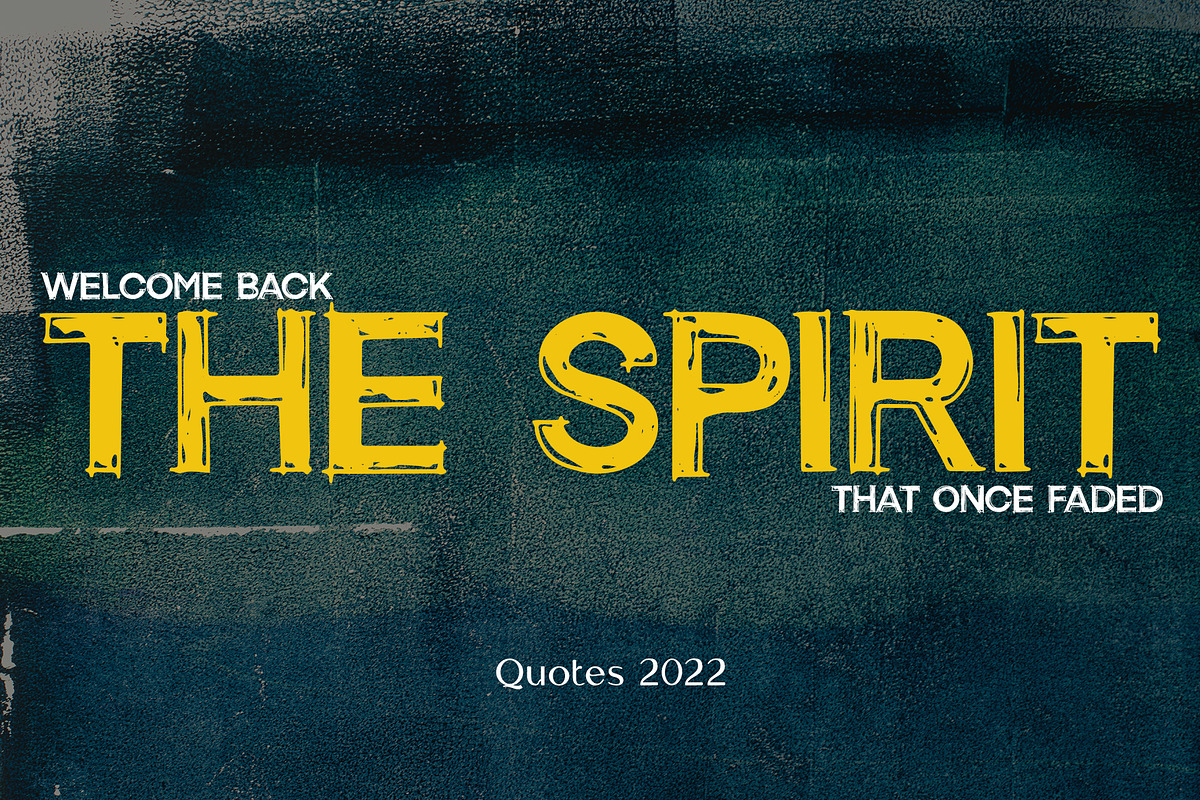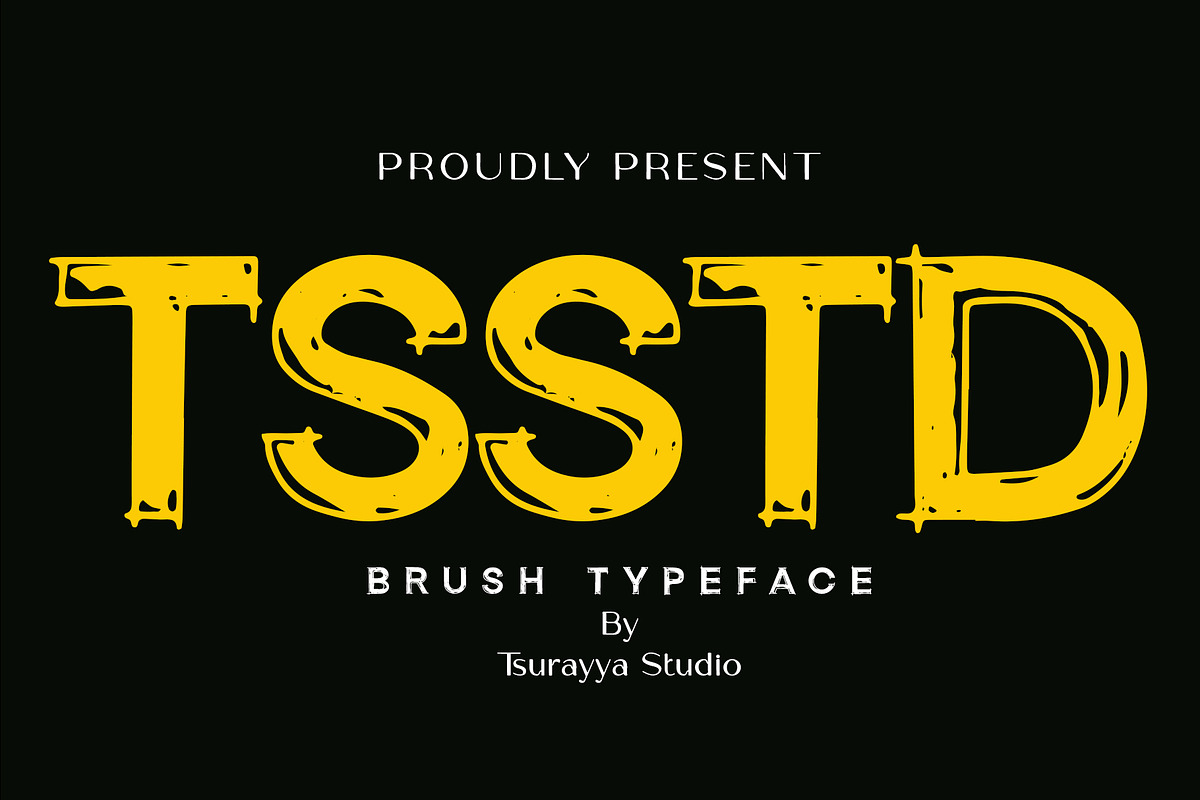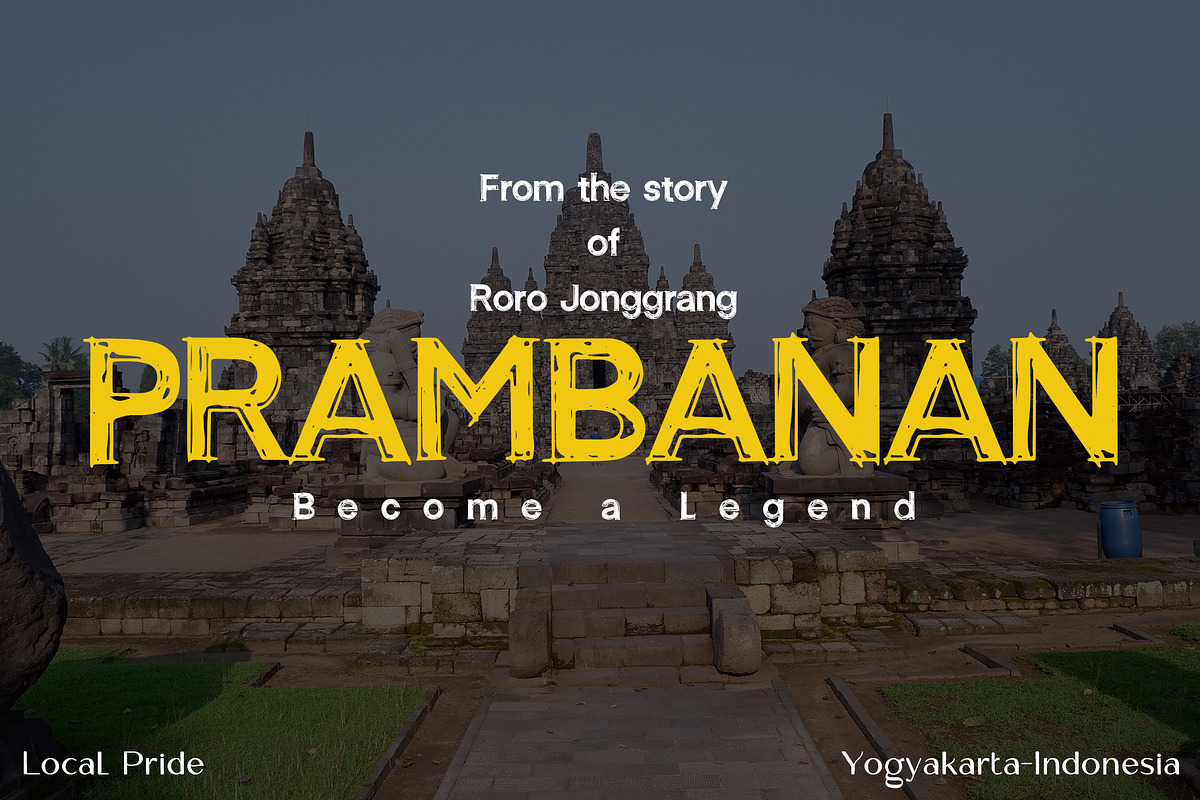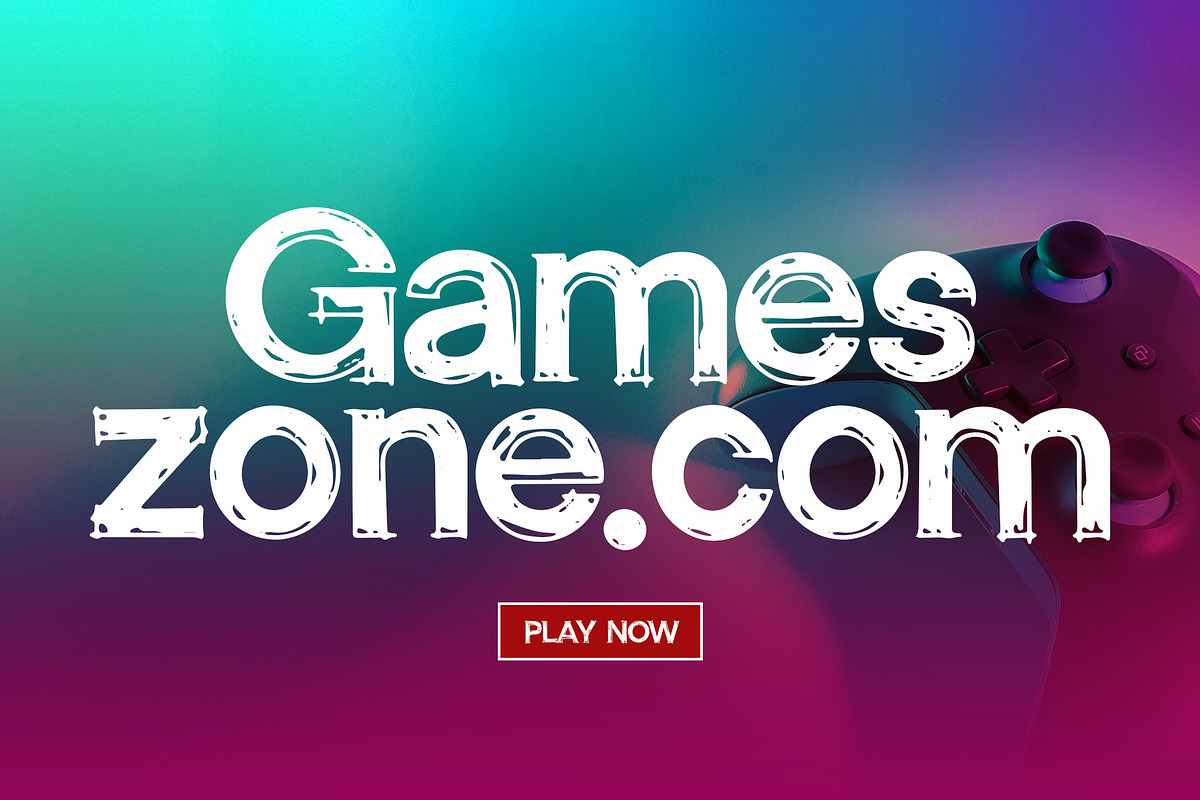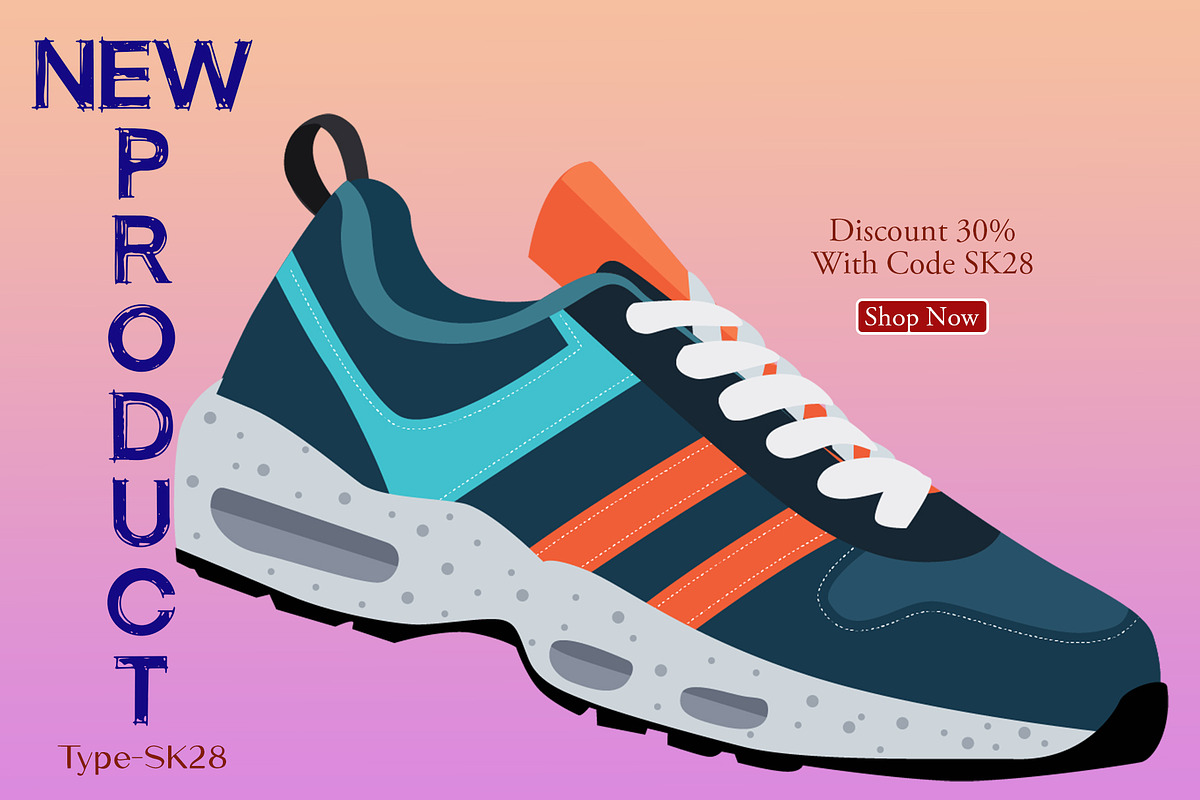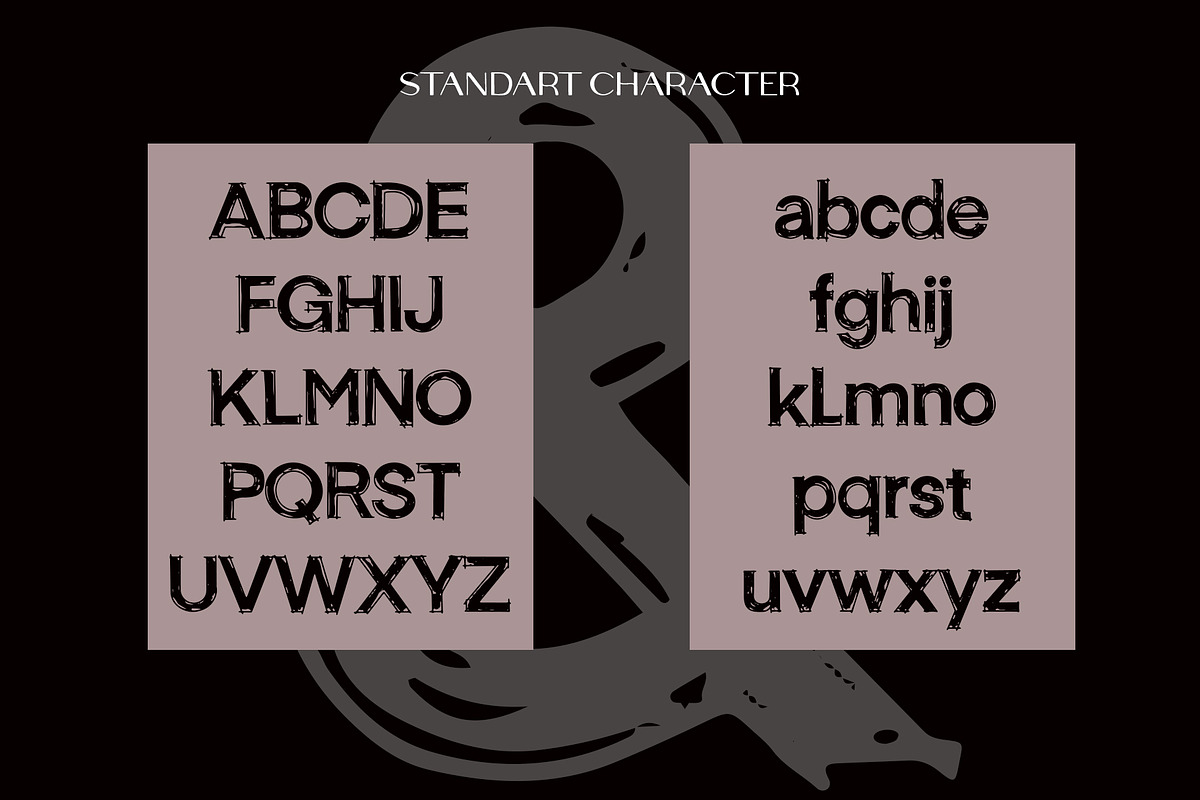
TSSTD
Rekt is a bold and sharp looking display font, that will truly inspire your works. Use this font for your designs and explore its endless possibilities.